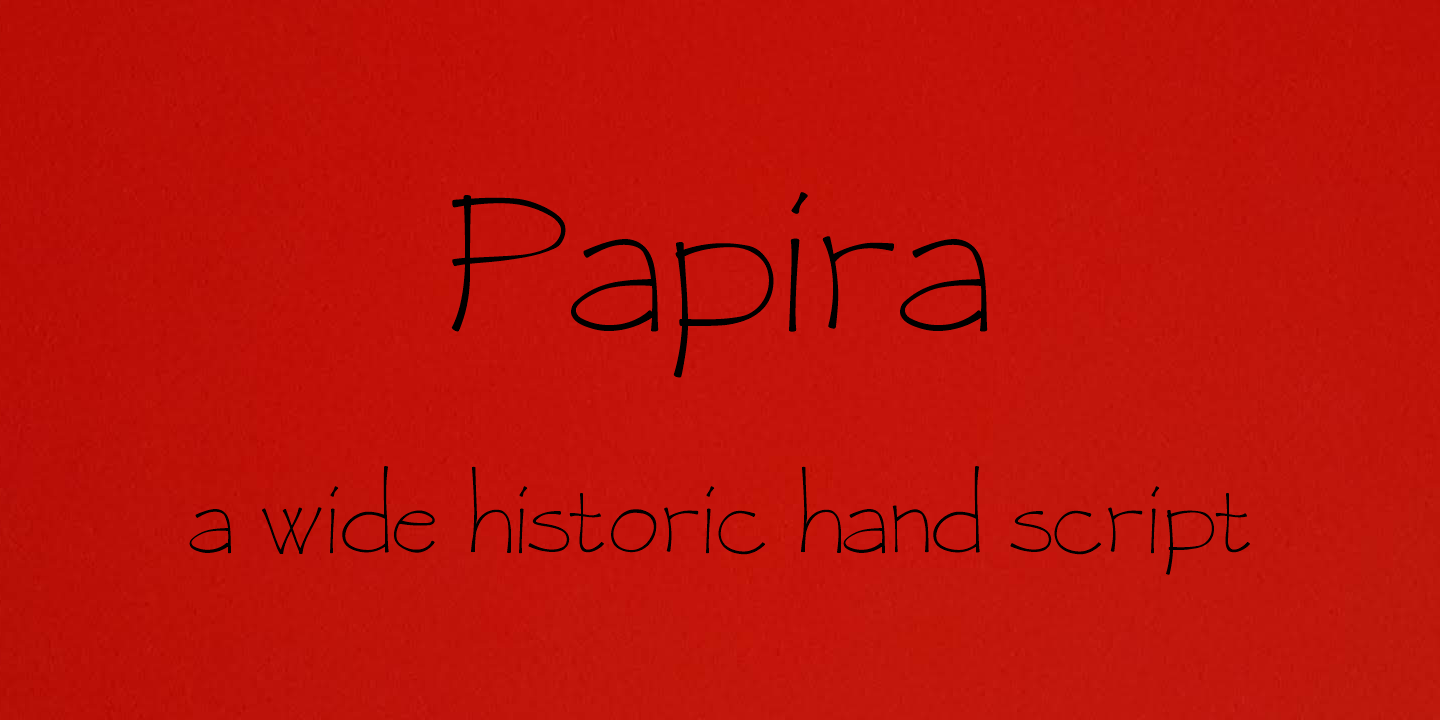
Papira, a wide papyrus age font
Papira is a wide and loose script font inspired by the antique age writing style on papyrus. Entirely handmade Papira can bring that historic sought after flavor to your designs.
Glyphs: Over 400 - Basic Latin, Diacritics, Alternates, Currency